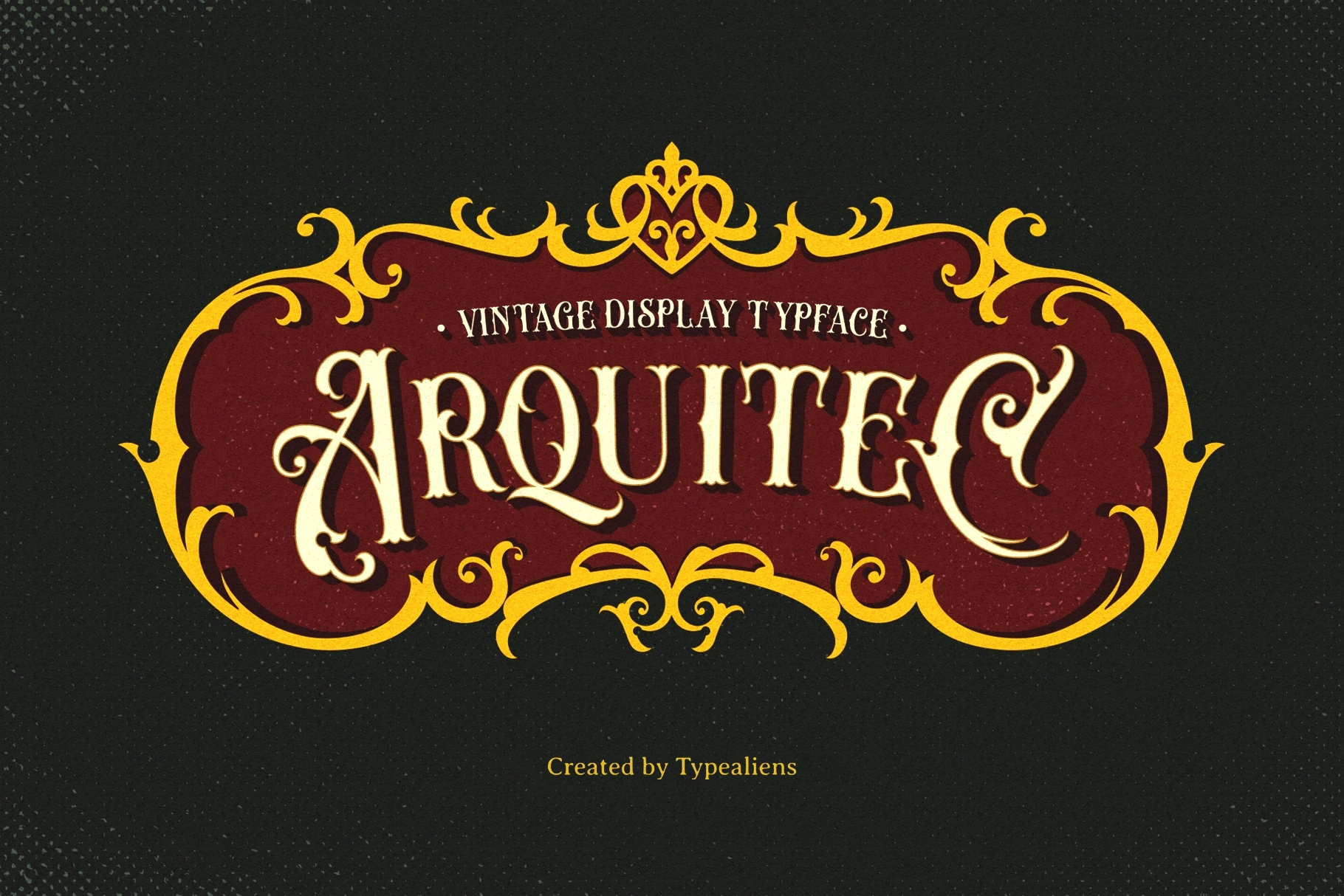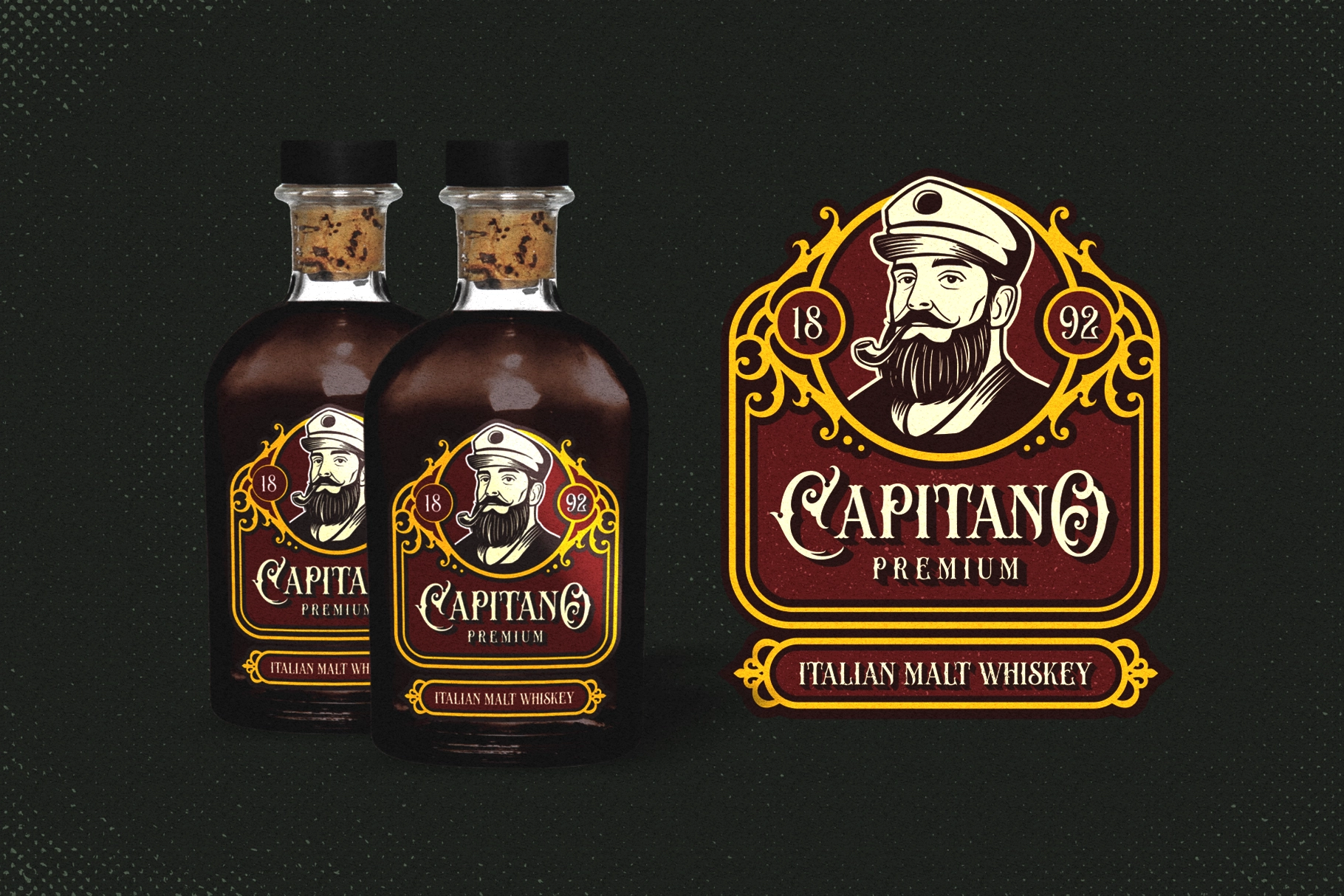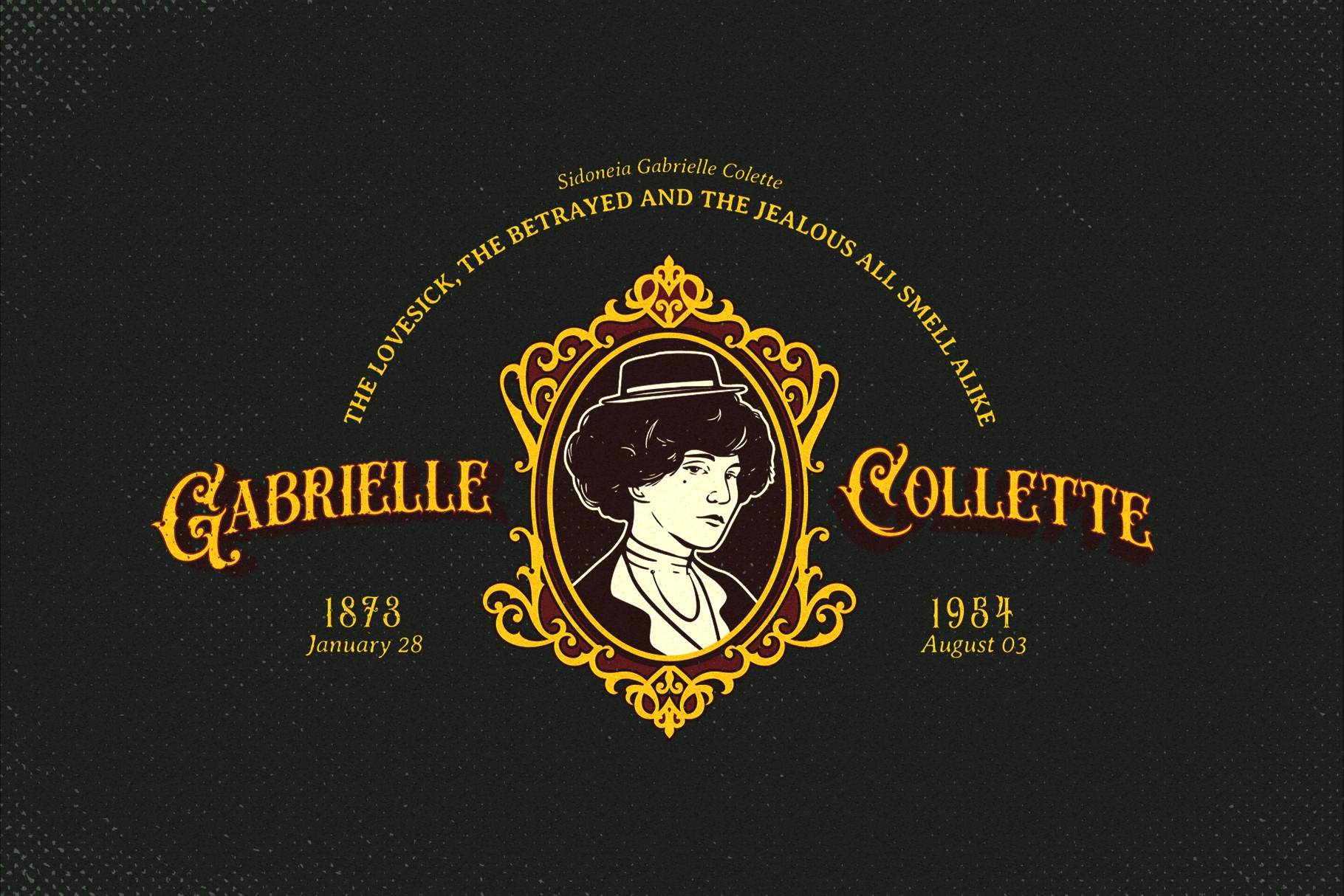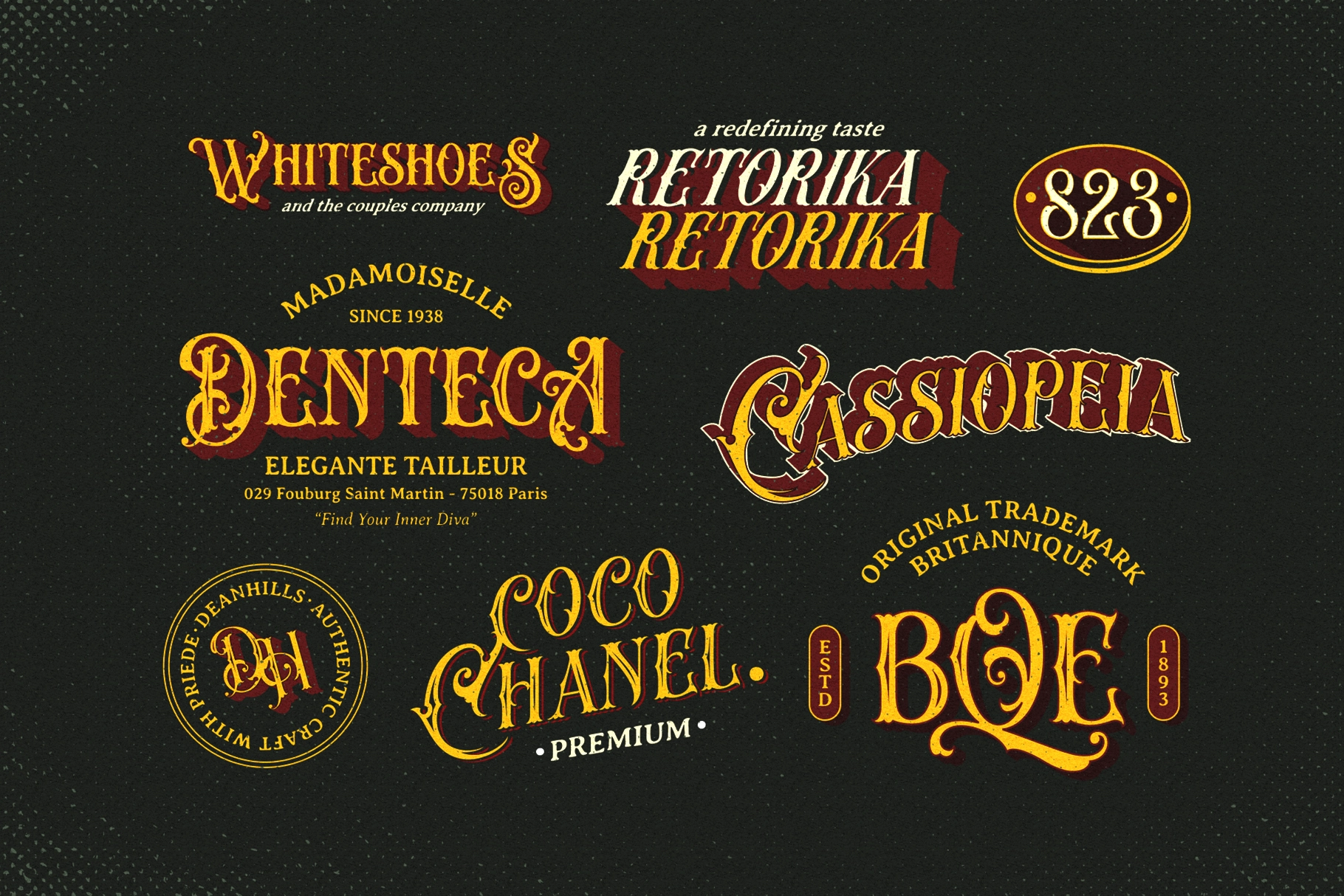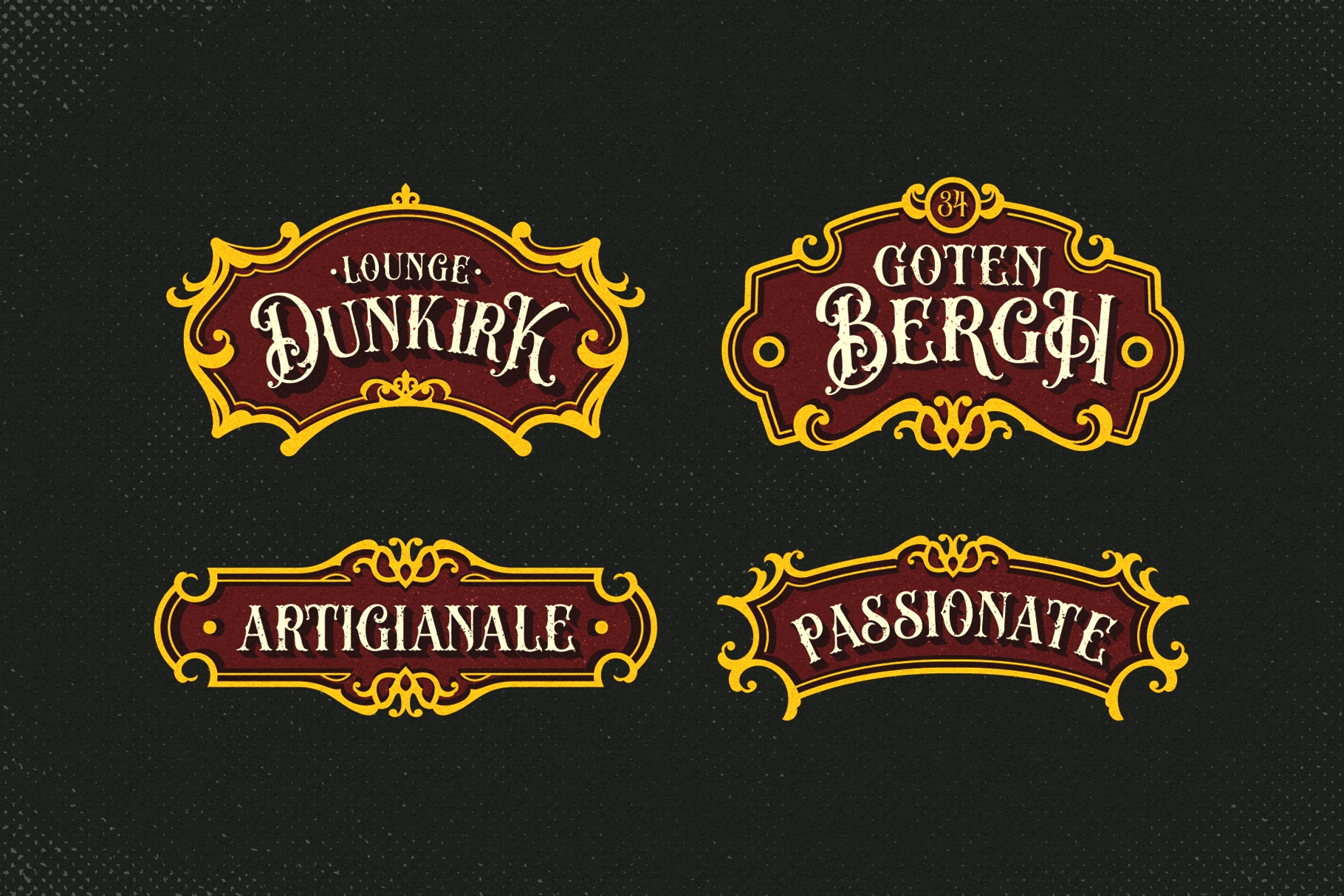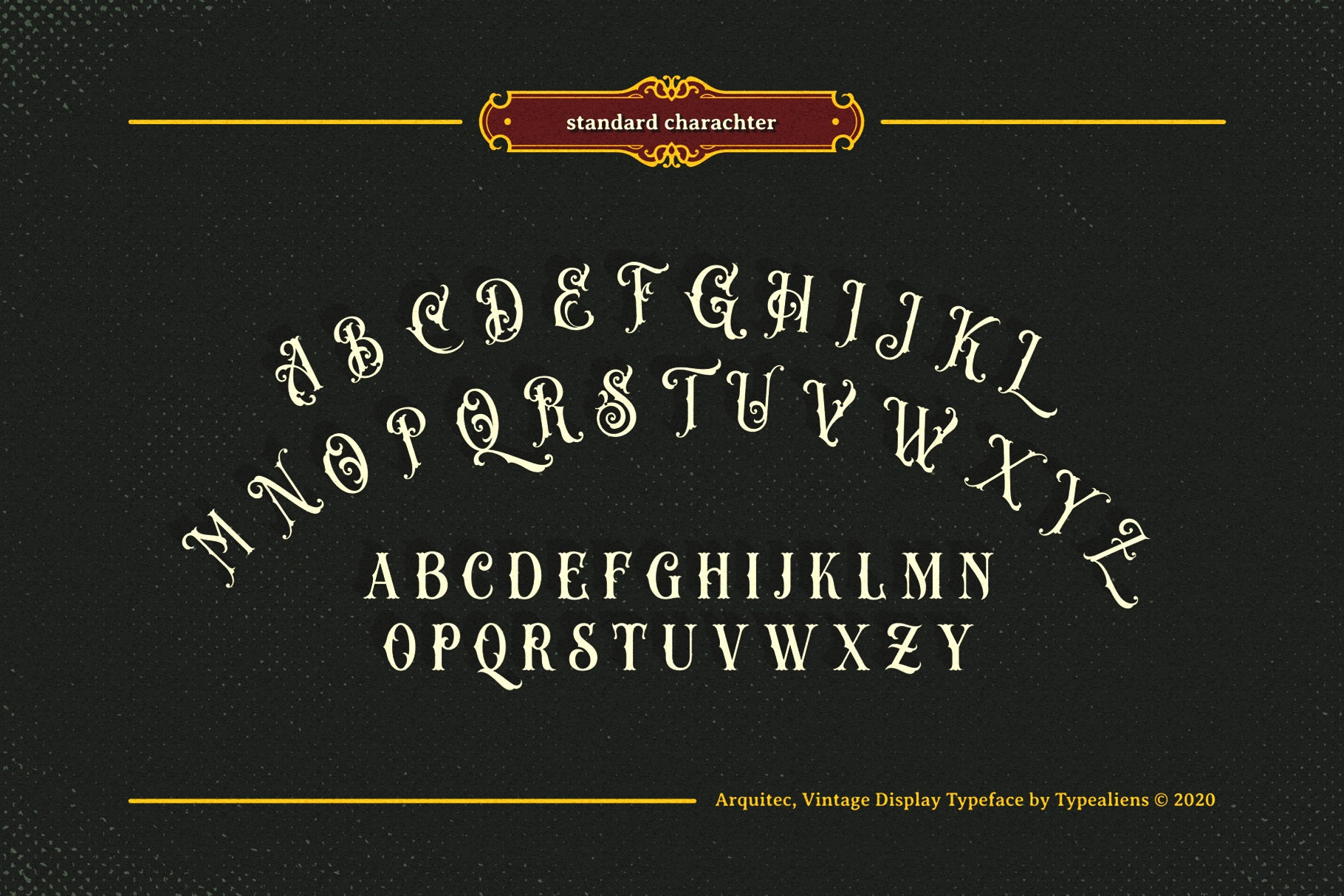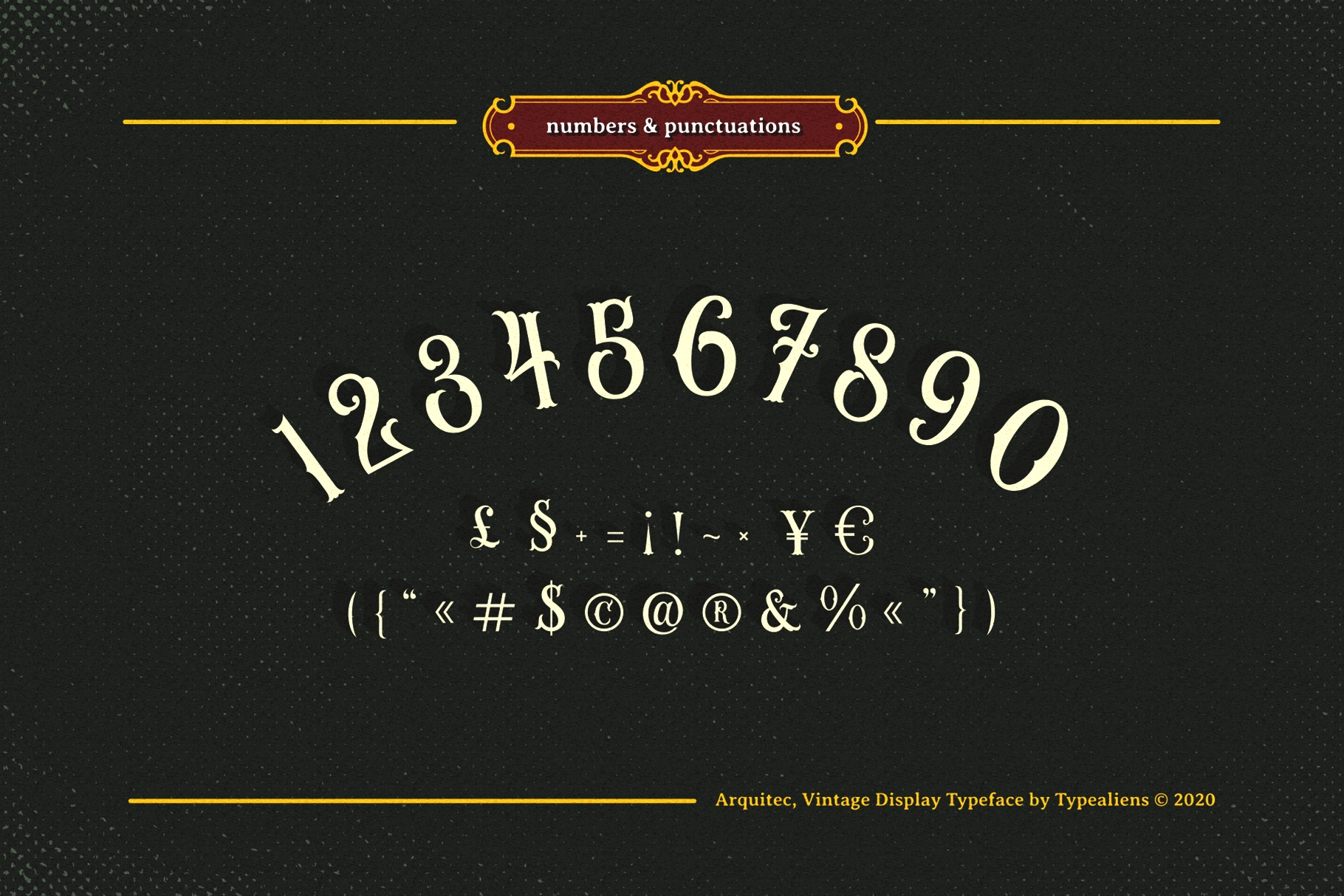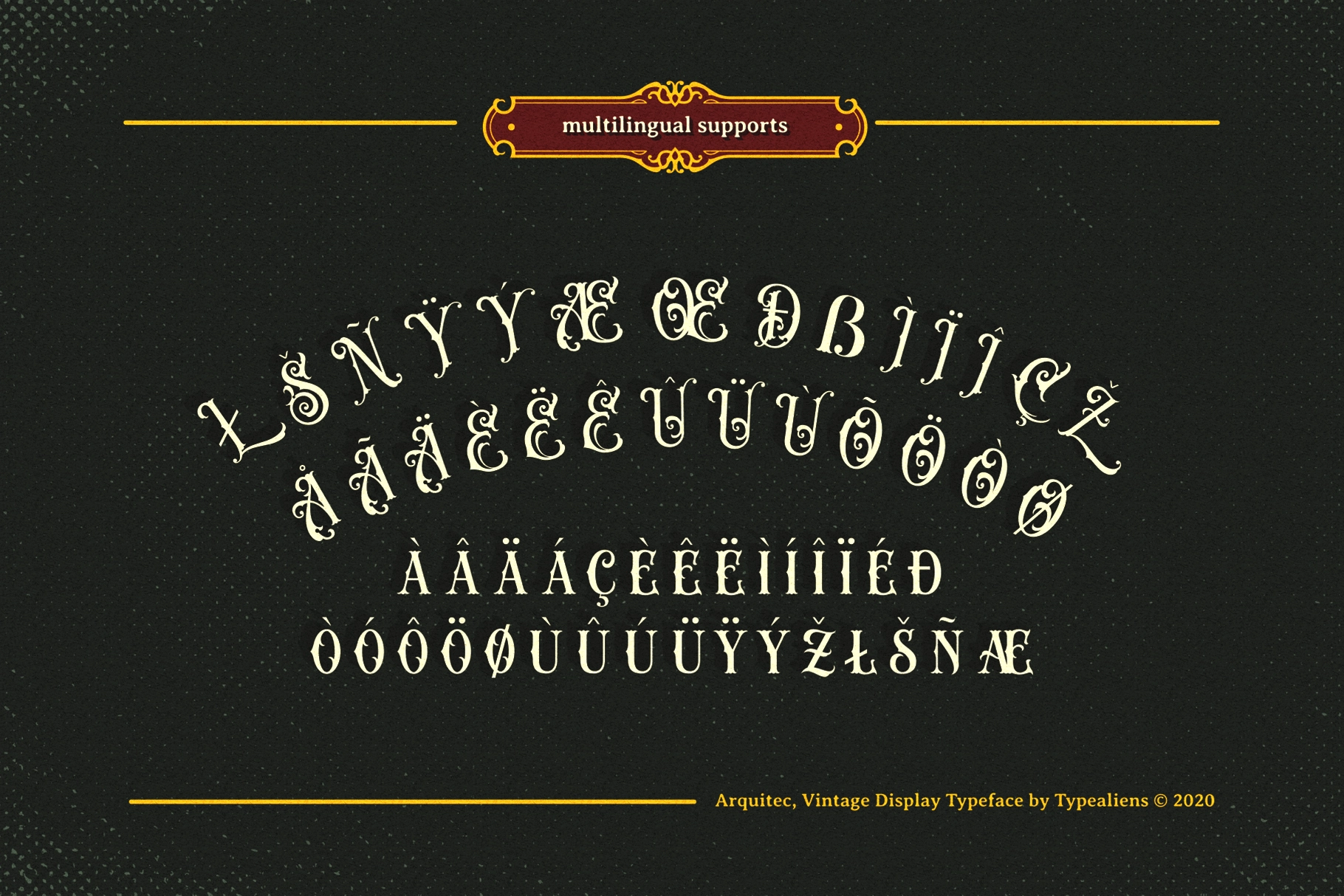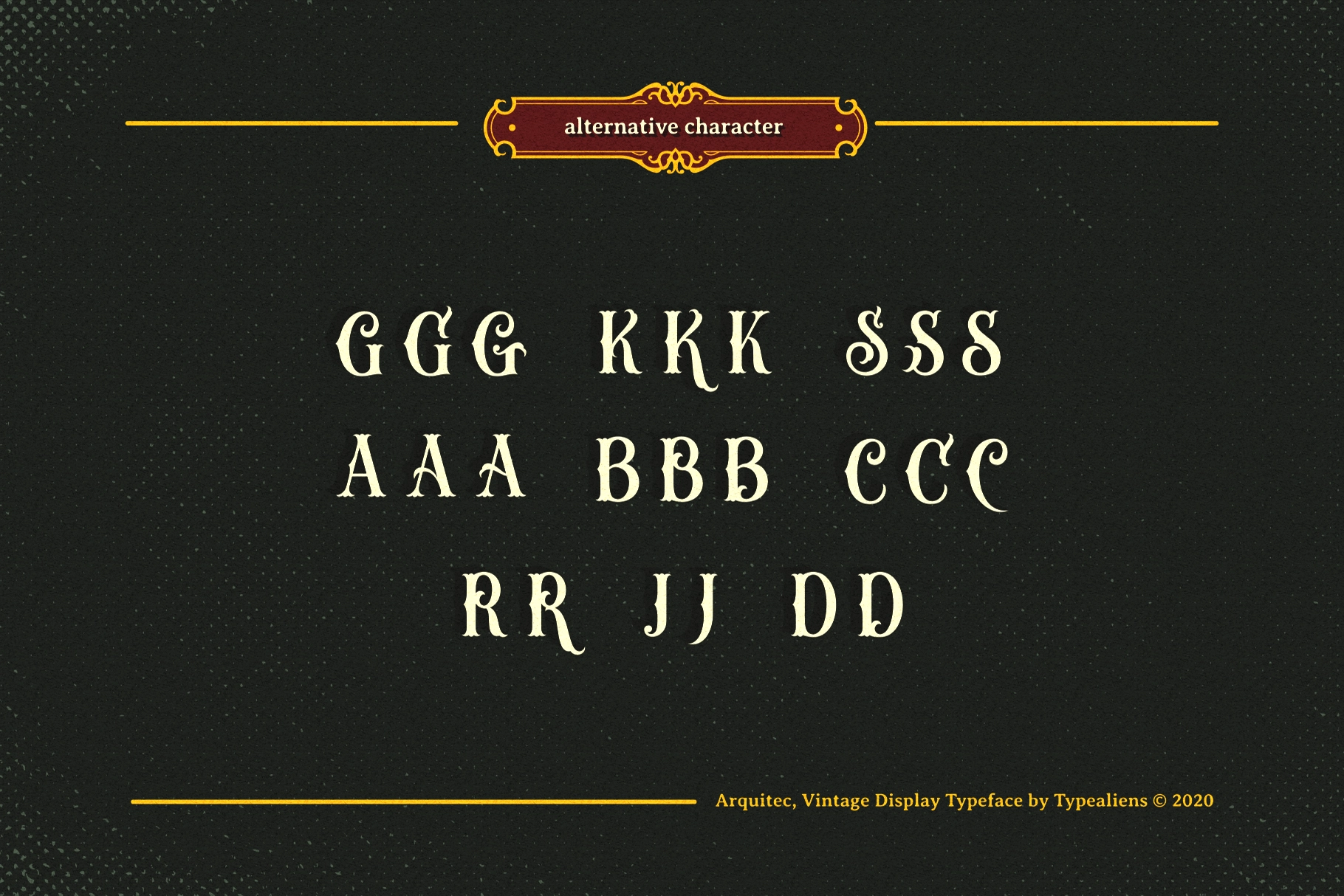
Arquitec — Vintage Display Font
Arquitec is a vintage display font drawn from the ornamental serif tradition of Victorian apothecary labels, circus posters, and 19th-century trade card lettering. The uppercase carries curled serifs, bracketed wedge terminals, and ink-trap details that give each glyph a hand-cut quality at display scale. The construction sits somewhere between a blackletter and a decorated Roman — upright and authoritative, but loaded with period character. A second, plainer uppercase set gives the option of toning down the decoration when the layout calls for it.
The font ships with a set of extras — ornamental frames and cameo-style portrait illustrations — that pair directly with the typeface for badge compositions, label layouts, and logo marks. Use Arquitec for whiskey and apothecary labels, tattoo studio branding, vintage circus and carnival posters, craft beer packaging, barbershop signage, and heritage logo work.
• Uppercase & lowercase;
• Numerals, punctuation & symbols;
• Alternates for select characters;
• Multilingual support (Latin Extended);
• Bonus extras: ornamental frames & portrait illustrations.